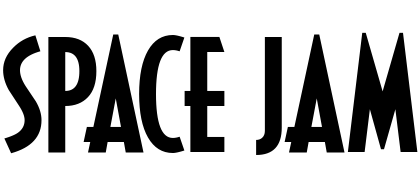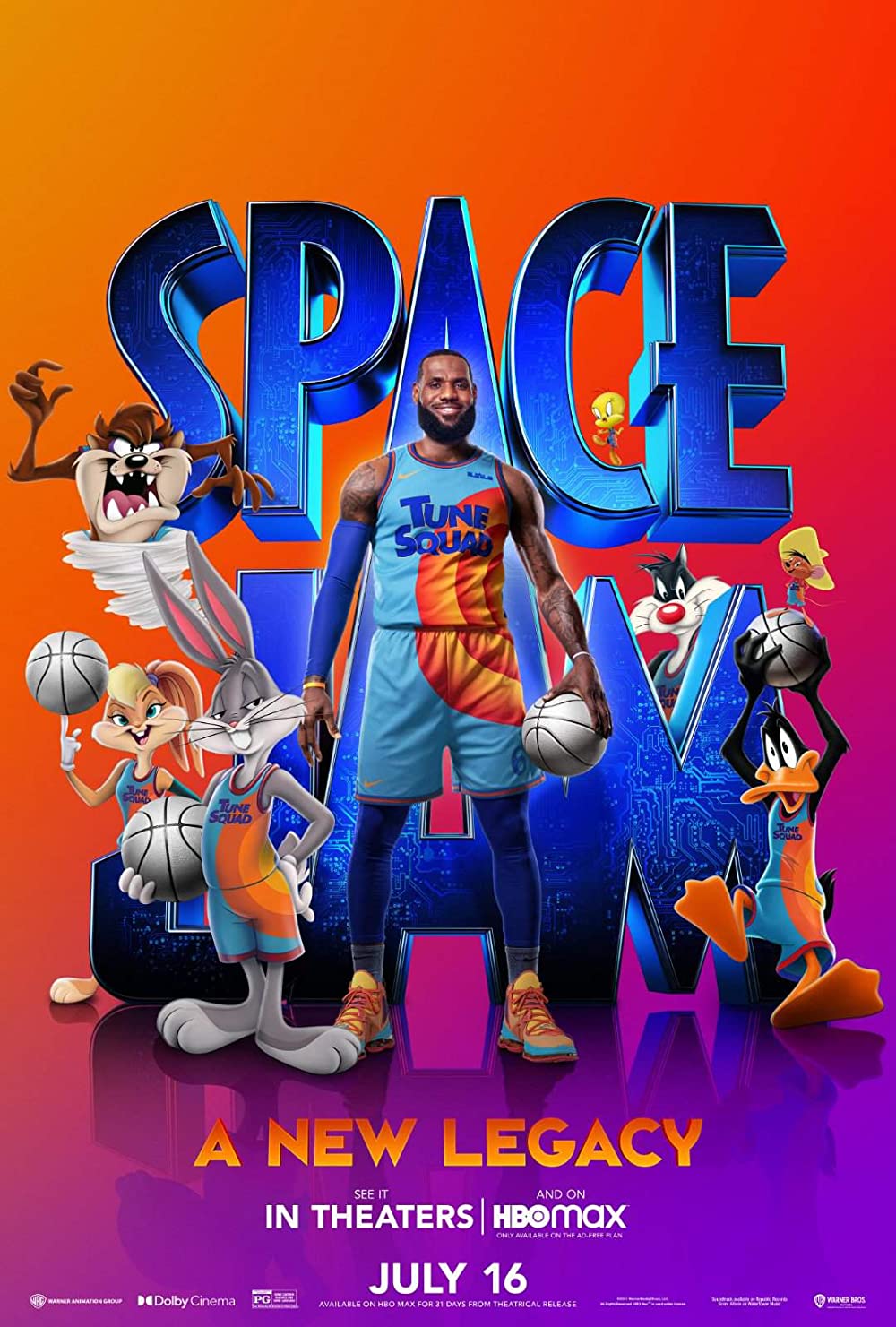
Space Jam A New Legacy Font
ComedySpace Jam: A New Legacy is a 2021 American live-action/animated sports comedy film. It is a sequel to the 1996 film "Space Jam" and stars LeBron James, Don Cheadle, and Sonequa Martin-Green.
The film title in the poster uses two fonts from the Image Club; the “Space Jam” part is very similar to Decotura. and the “A New Legacy” part is probably set in Republik Sans Two. Commercial licenses are available for both fonts.